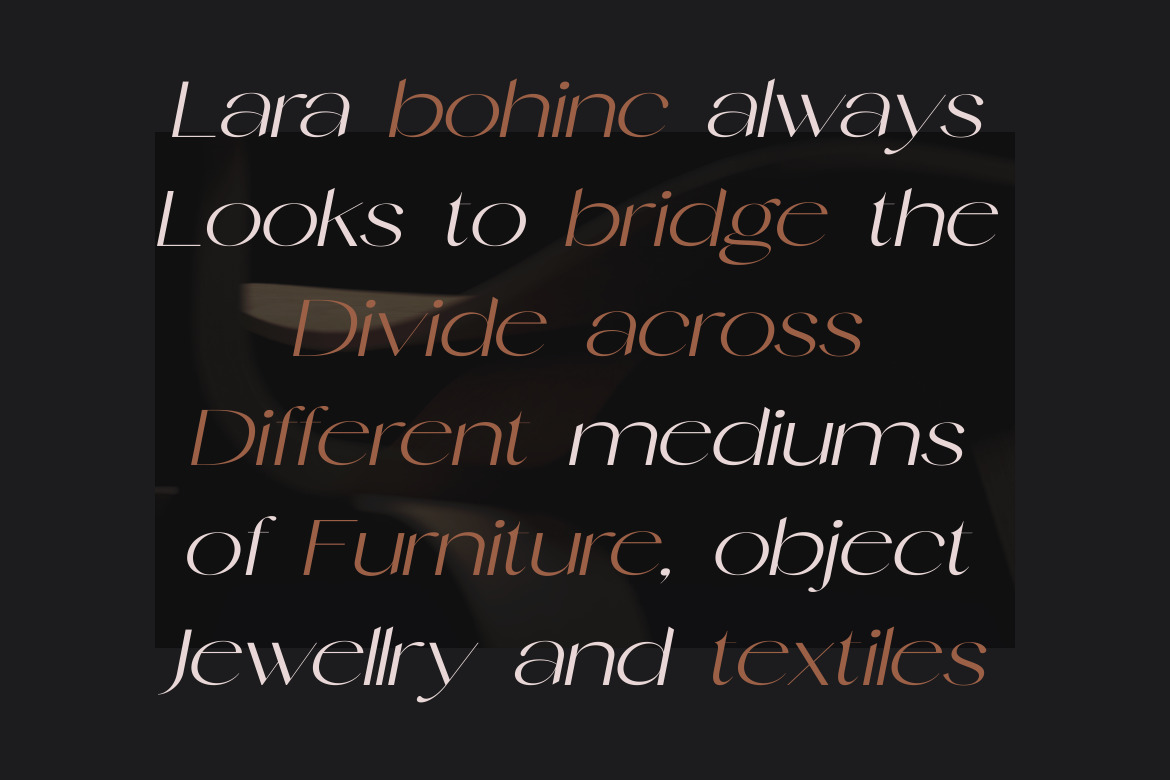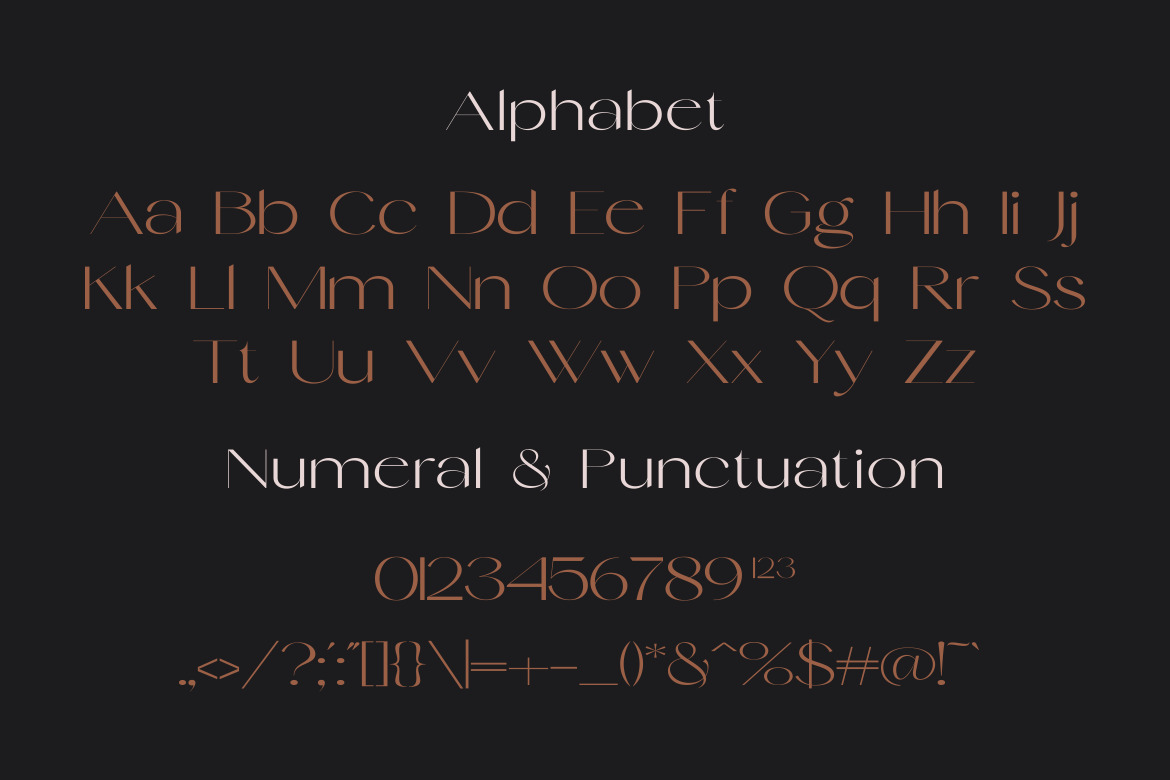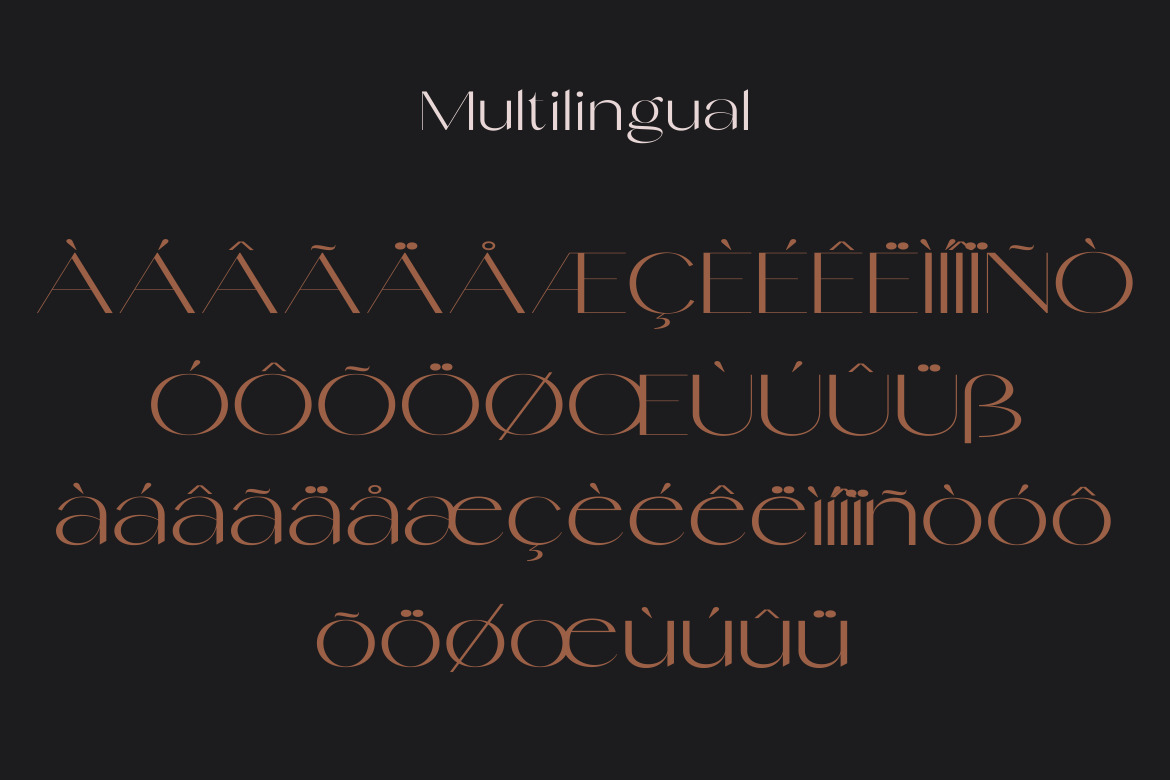
Verona - A Modern Sans Serif Font
Introducing our new product **Verona Font** - A Modern Sans Serif Font
Verona Font** - A Modern Sans Serif Font is a bold and authentic display font. The font is suitable for any branding project like logo,Template Design, Product and many more. outstanding in a wide range of contexts.